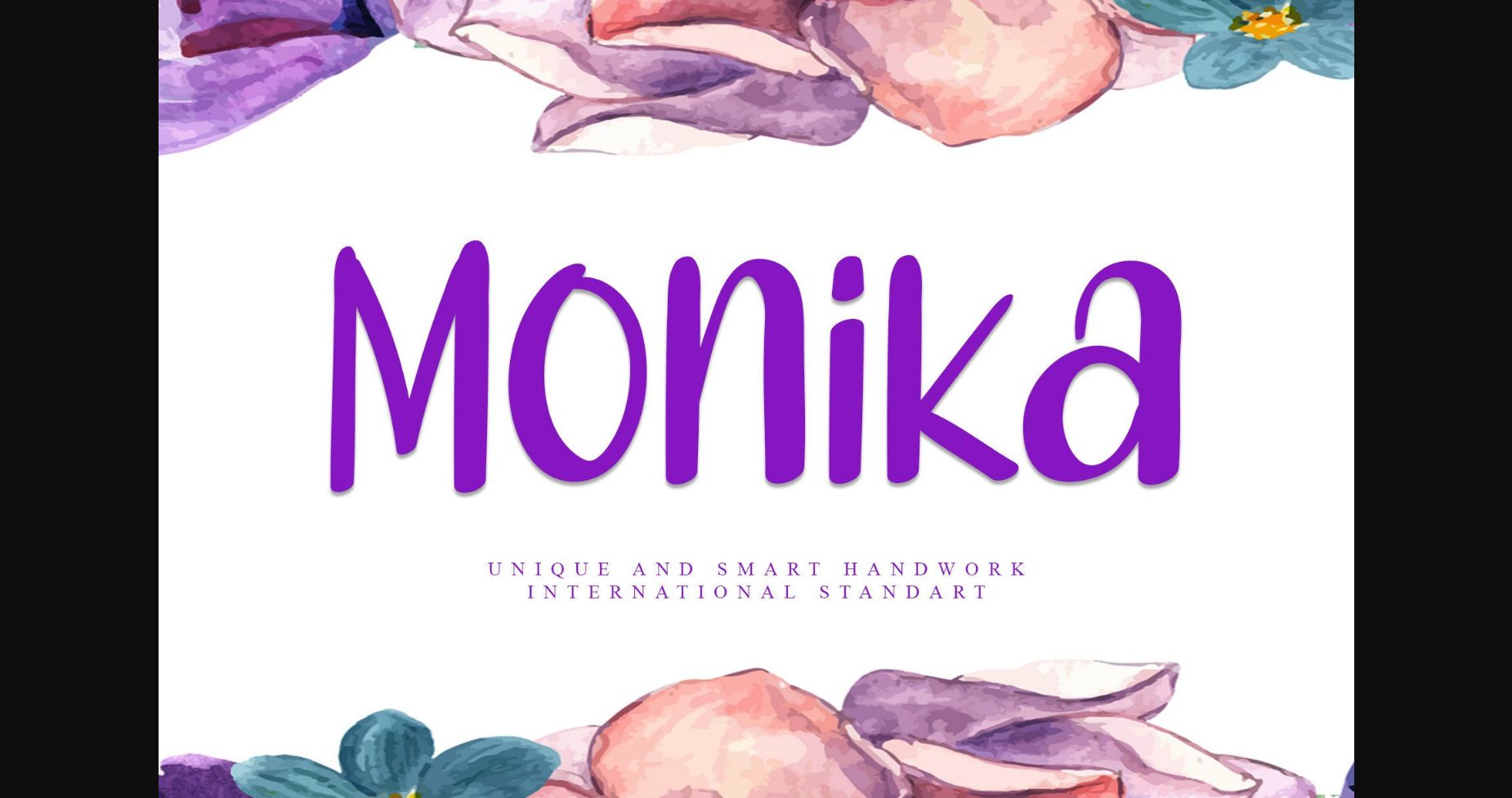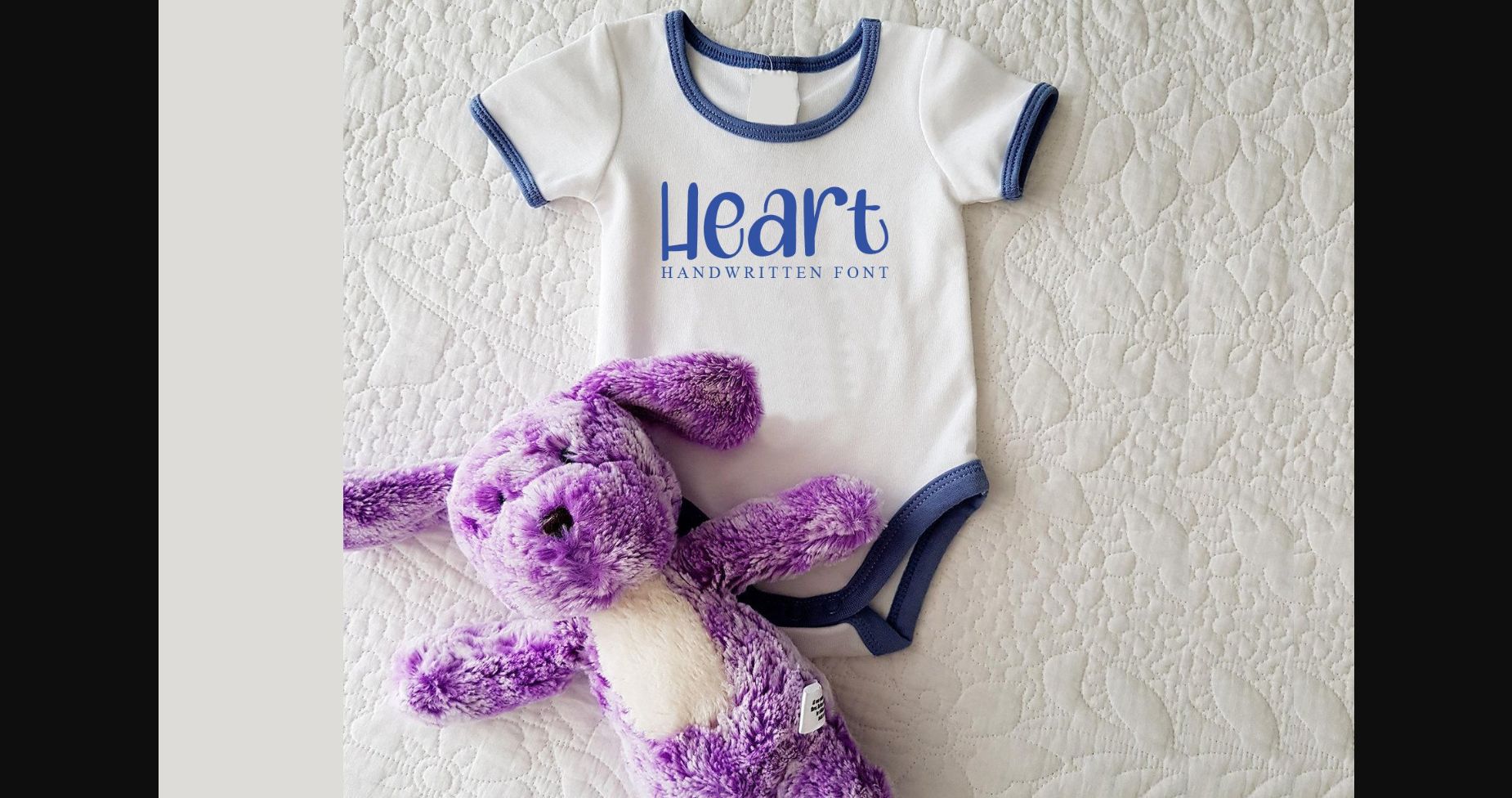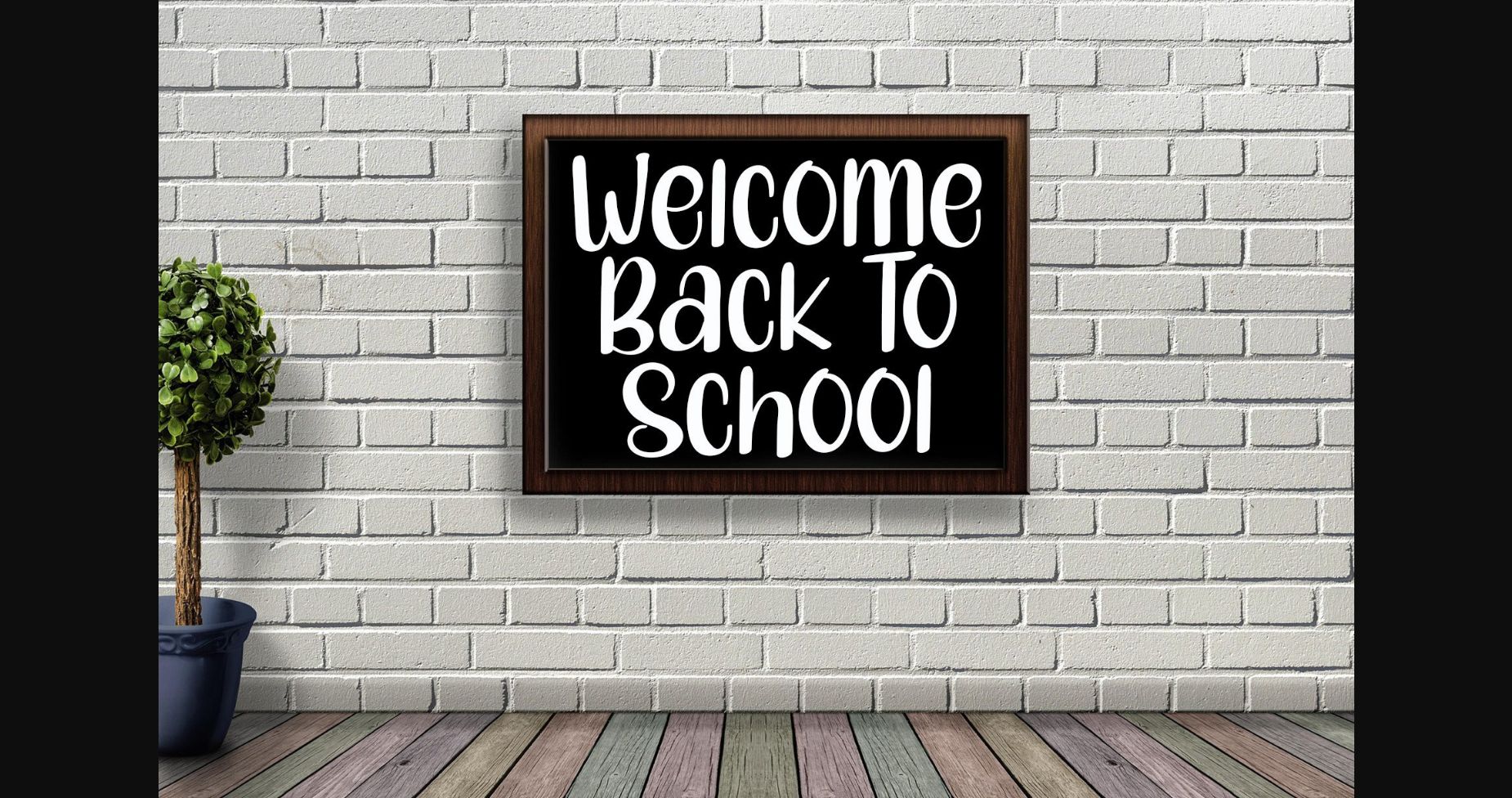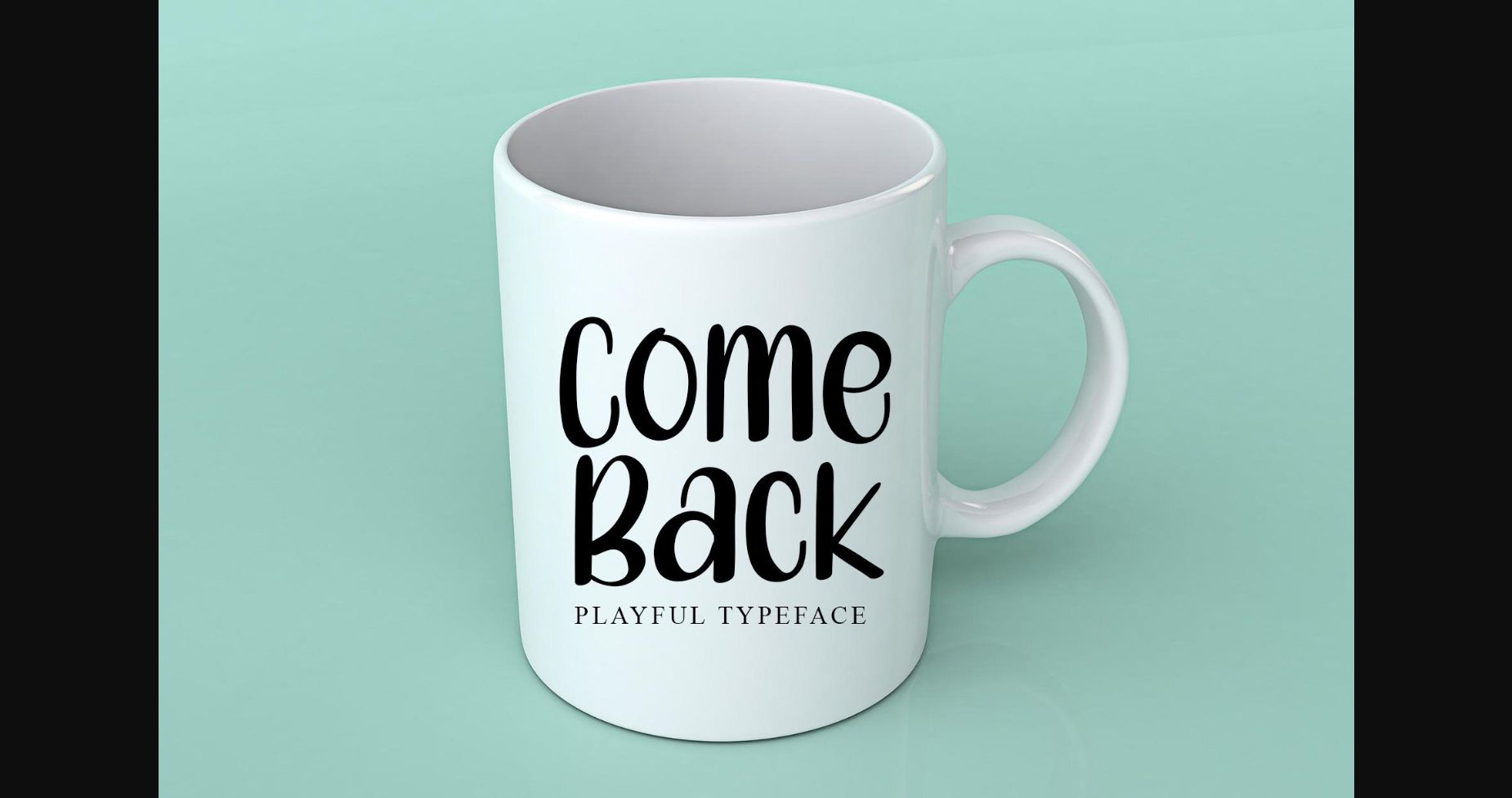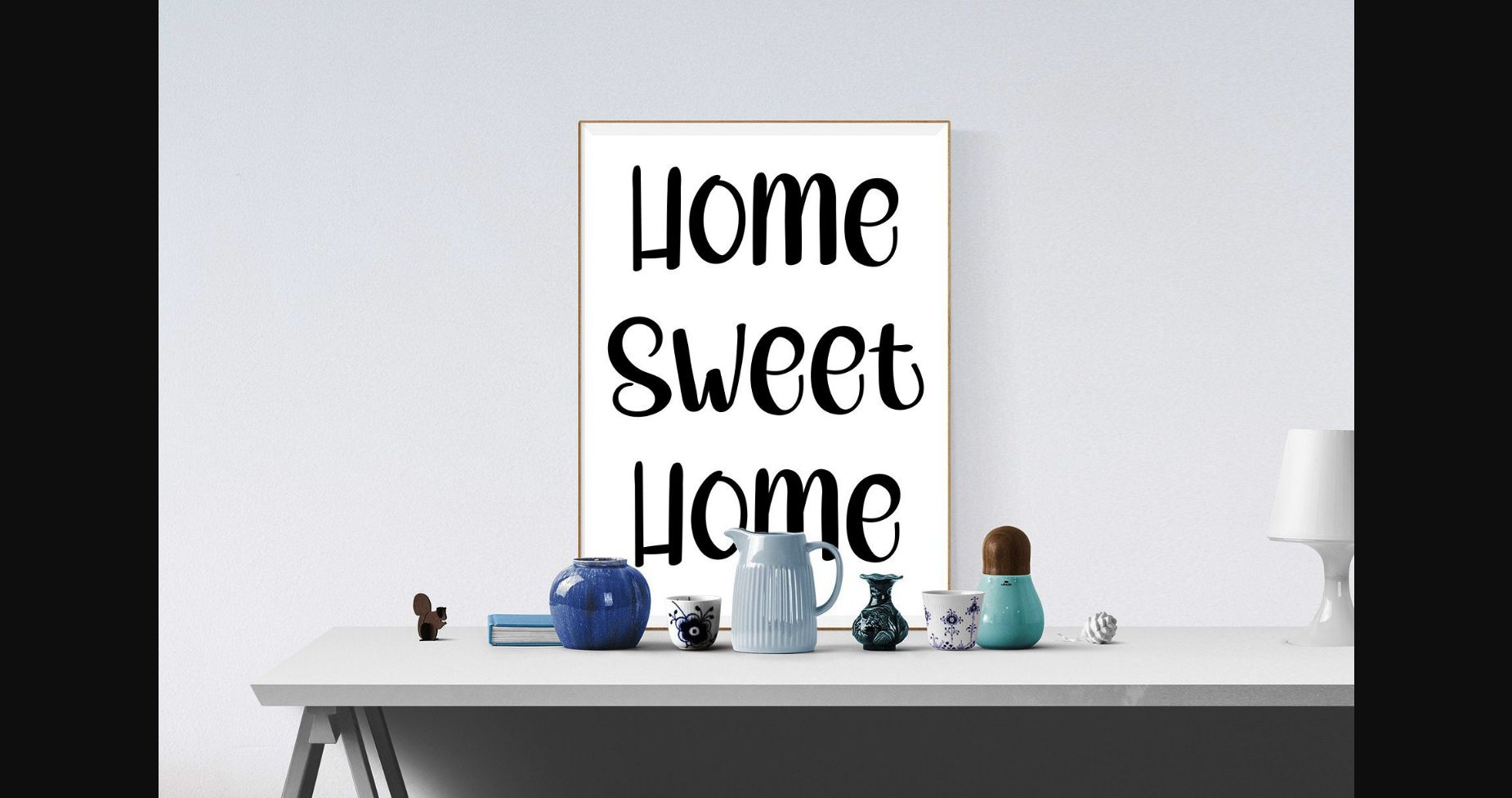
Monika Font
About Monika Font
Monika is a unique and elegant font. Looks great on wedding invitations, greeting cards, billboards, logos, business cards, and any other design that requires a handwritten touch. This font features a varied baseline, created with a natural, hand-made touch so that it creates spectacular creations and will make your ideas look more real. This font is PUA encoded, which means you can access all glyphs and swashes with ease!